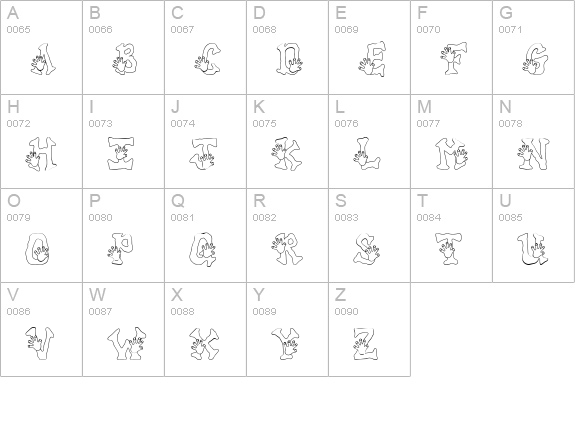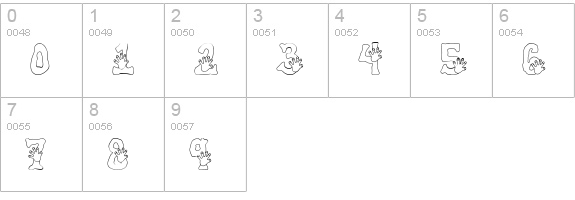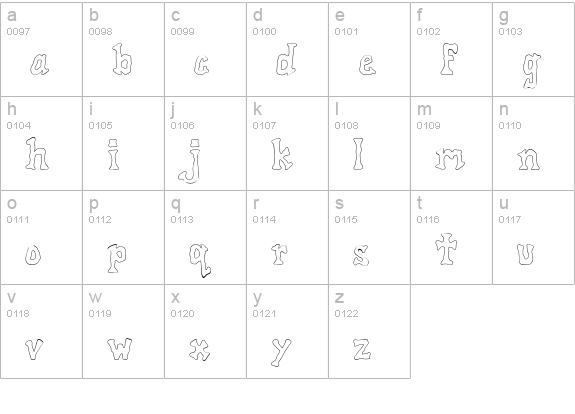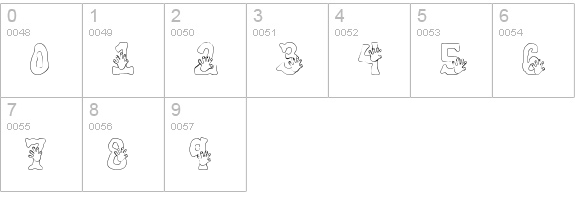
CK Hands On Font Details
CK Hands On font is a charming and playful typeface that exudes a sense of creativity and whimsy. Its hand-drawn style gives it a unique and organic feel, making it perfect for a variety of design projects. With its irregular lines and quirky charm, CK Hands On font adds a personal touch to any text or design. And the best part? CK Hands On font is completely free to download at FontsMarket.com! This means you can easily add this delightful font to your collection without any cost. Whether you're working on invitations, posters, or social media graphics, CK Hands On font is sure to bring a fun and casual vibe to your designs. Download it today and let your creativity shine with this free and fabulous font!